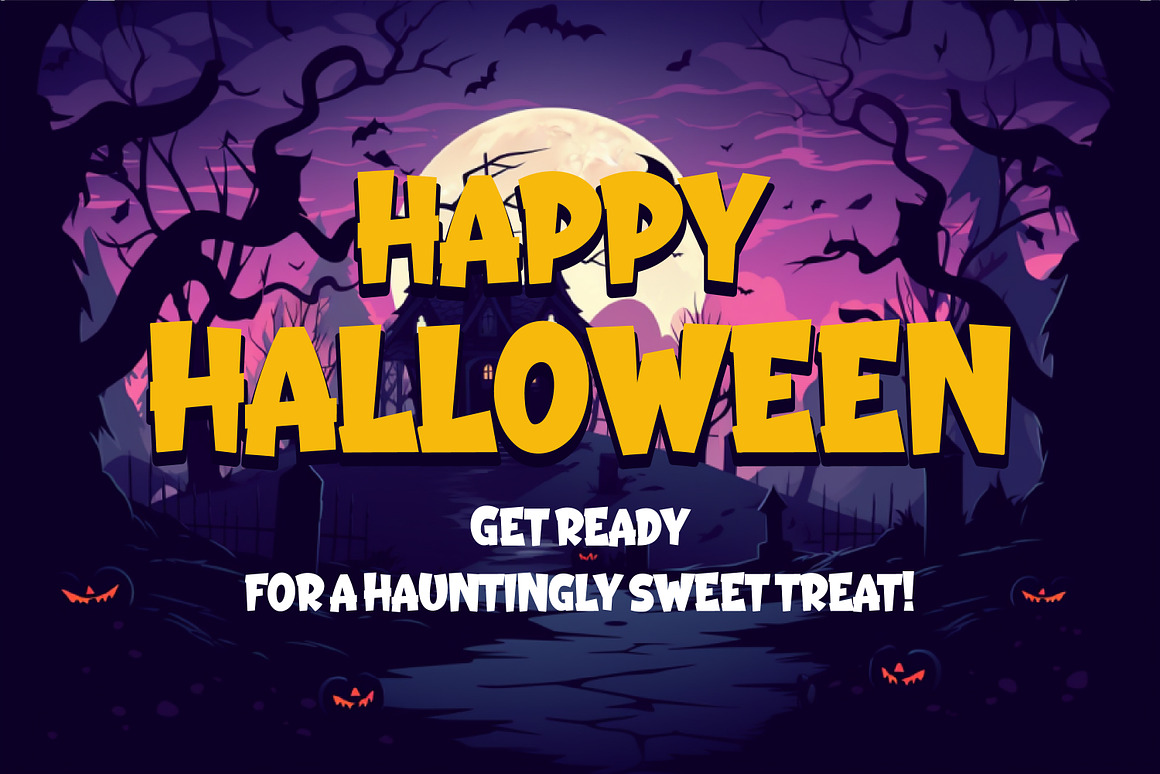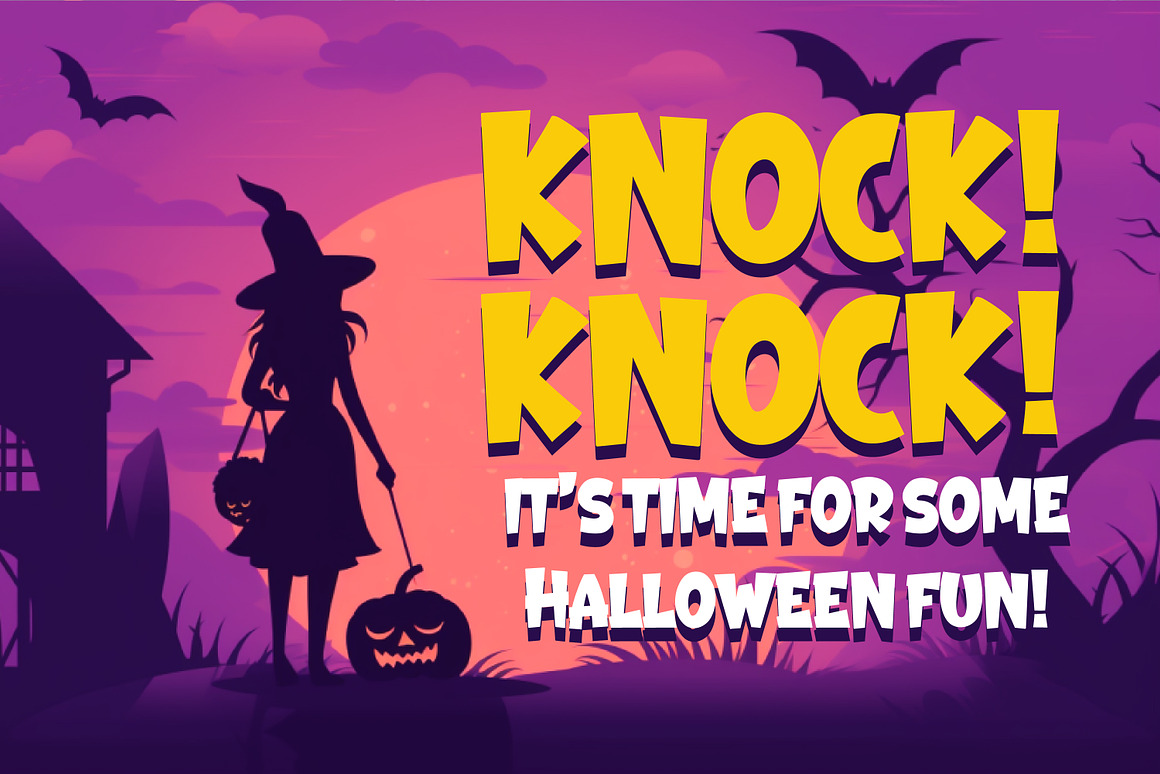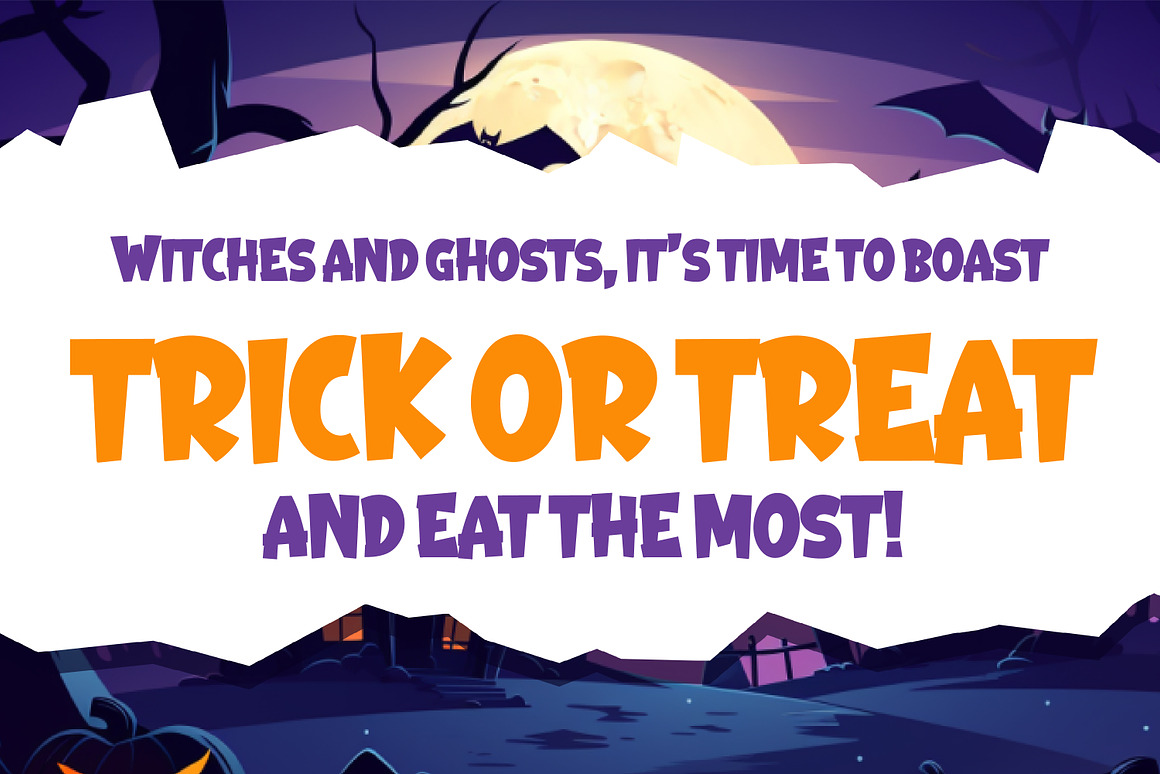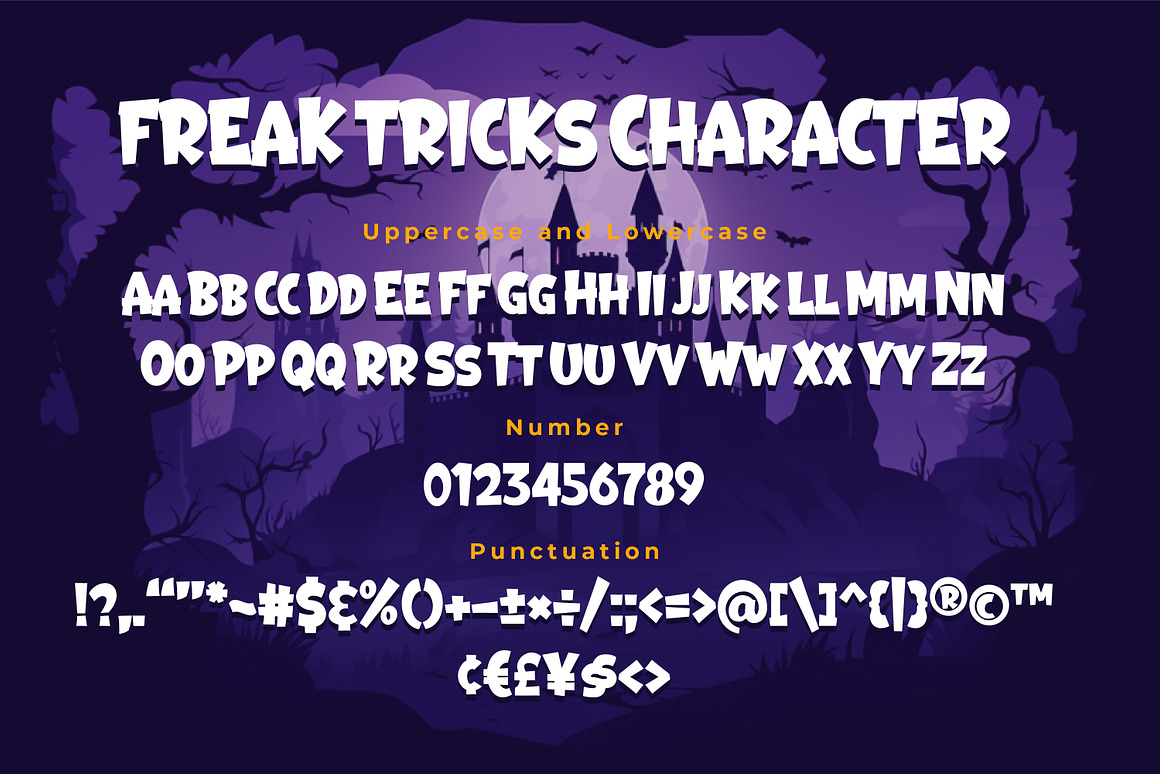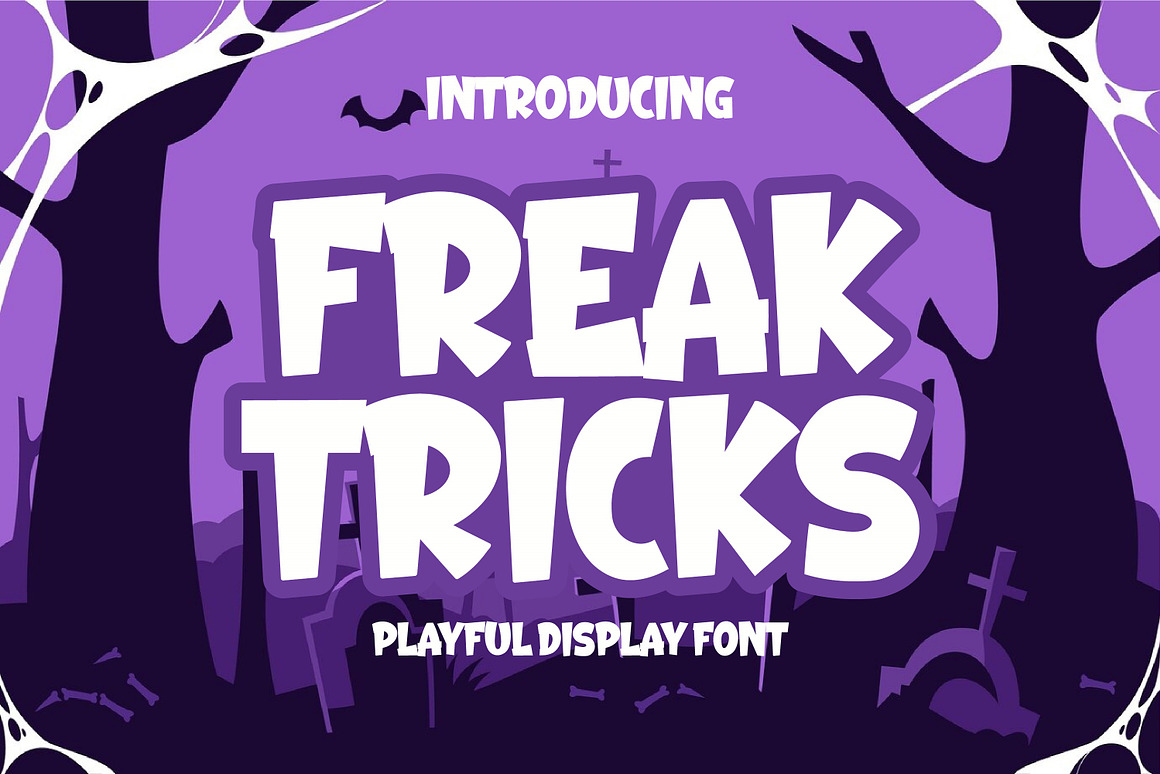
Freak Tricks Playful Display
The playful display font that brings wild fun and bold creativity to your designs! With its quirky, unpredictable shapes and energetic vibe, Freak Trikcs is perfect for projects that need a splash of fun and excitement. Whether you're designing for posters, party invites, quirky branding, or social media, this font adds a sense of adventure and whimsy.